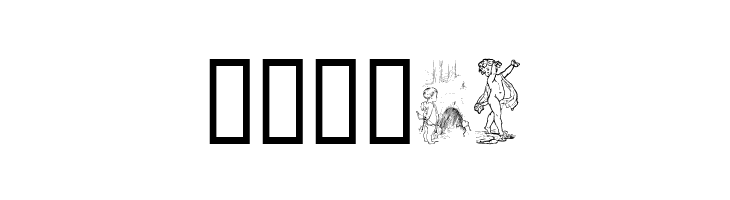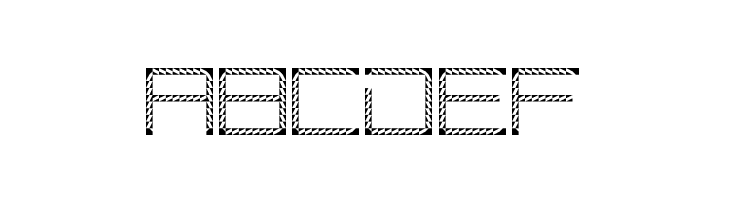
Amaya Technical Etching Regular Font
A geometric, etched font with a technical, industrial style.
Mystic Etchings Normal Font
A bold, artistic font with a whimsical, hand-drawn style.